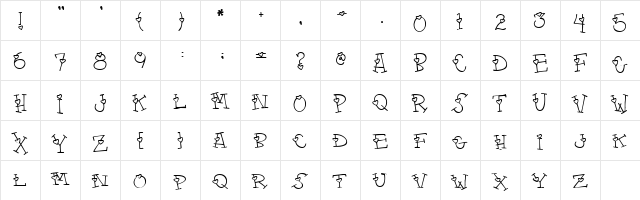
4 my lover Regular
Design Context for 4 my lover Typeface
4 my lover is a composed and adaptable typeface that performs quietly and consistently across a wide range of design contexts.